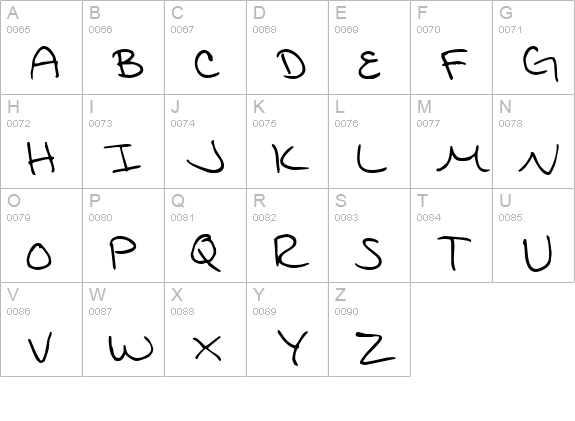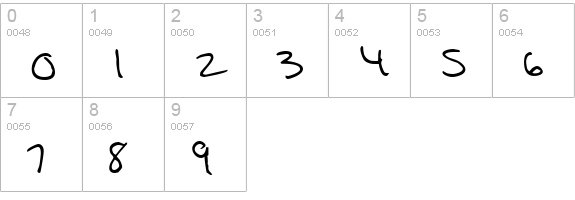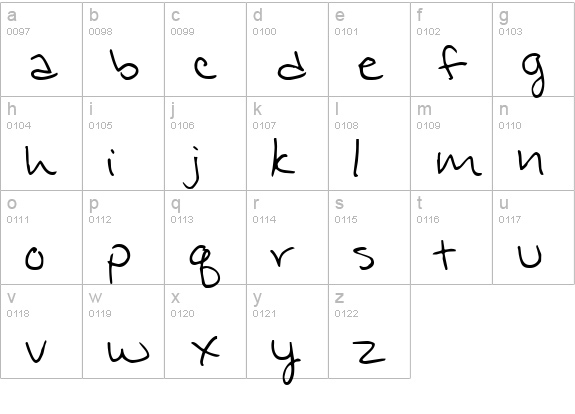
Jennifer's Hand Writing Font Details
Jennifer's Hand Writing font is a charming and elegant script typeface that adds a personal touch to any project. With its flowing lines and delicate curves, this font captures the essence of beautiful handwriting. Whether you're designing wedding invitations, greeting cards, or social media graphics, Jennifer's Hand Writing font will surely elevate your creations. The best part is that this font is completely free to download at FontsMarket.com. You can easily add a touch of sophistication and warmth to your designs without spending a dime. Don't miss out on the opportunity to enhance your projects with Jennifer's Hand Writing font – download it today and let your creativity shine!